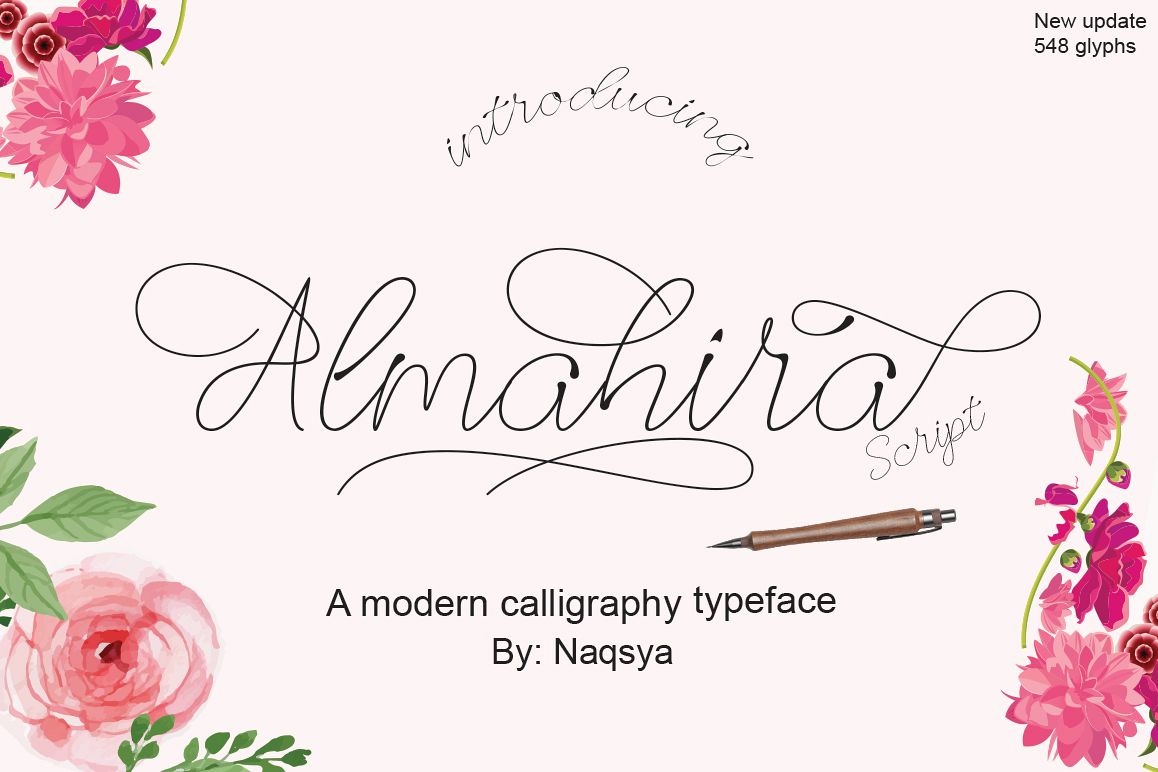
Almahira
Almahira Modern Calligraphy. This font was designed by handwriting, and it has a modern and unique forms of calligraphy, the writing style is very natural.The Features of this fonts is;
• Standart ligatures
• Contextual Alternates
• Stylistic sets
• swash